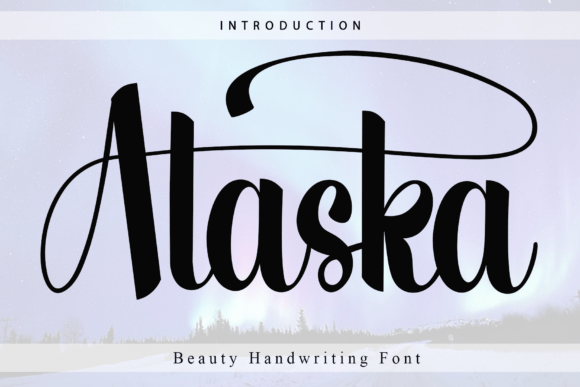
The Designer’s Delight: Exploring the Alaska Font
I’ll never forget the moment I stumbled upon the Alaska font while working on a branding project for a boutique hotel. I was on a tight deadline, and my client was being picky about the typography. I had scoured the internet for the perfect font, but nothing seemed quite right. That was until I discovered Alaska – a stylish handwritten font that instantly elevated my design. In this article, I’ll share my experience with Alaska, its features, and how to make the most of it in your projects.
An Honest Review of Alaska Font
As a designer, I appreciate fonts that are both beautiful and functional. Here’s what I love about Alaska:
- ✨ Contemporary atmosphere: Alaska has a fresh, modern feel that’s perfect for projects that require a touch of sophistication.
- ✅ Impeccable form: The font’s classic calligraphy inspiration shines through in its elegant letterforms.
- 💡 Balanced and varied: Alaska’s range of glyphs and stylistic alternates make it versatile and exciting to work with.
While Alaska is an excellent font, it’s not without its quirks:
- 🤔 Limited multilingual support: Alaska’s character set is somewhat limited, so it’s essential to check if it supports the languages you need.
- ⚠️ Occasional kerning issues: As with any font, you may encounter kerning problems, especially when using Alaska with other fonts.
The Story Behind Alaska Font
Alaska was inspired by the timeless beauty of classic calligraphy. Its creator, a talented type designer, aimed to craft a font that would bring a touch of elegance and sophistication to modern designs. With its impeccable form and balanced character set, Alaska has become a popular choice among designers and crafters.
| What is the Alaska font inspired by? | Alaska is inspired by classic calligraphy, with a modern twist. |
| Is Alaska suitable for body text? | While Alaska is beautiful, it’s best suited for headlines, titles, and short paragraphs. Its elegant letterforms may not be ideal for long-form text. |
| Does Alaska support multiple languages? | Alaska’s character set is somewhat limited, so it’s essential to check if it supports the languages you need. |